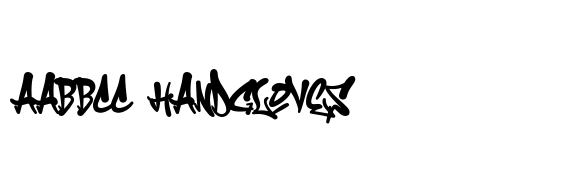
Snakehead Graffiti
by Sipanji21
The Snakehead Graffiti Font Family was designed by Sipanji and published by Sipanji21. Snakehead Graffiti contains 1 styles.
Snake head is a script font with a graffiti look. cool to be use in various types of designs, with several choices of characters and various kinds of swashes, so that your design looks powerful, this font is sutable for branding, clothing, logotype, packaging, advertising, crafting, and various other designs.